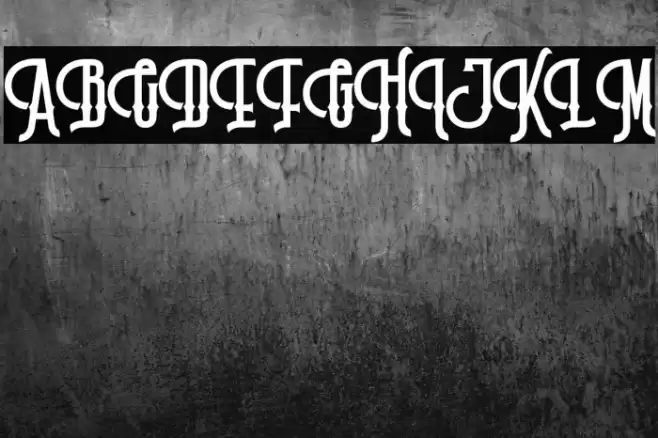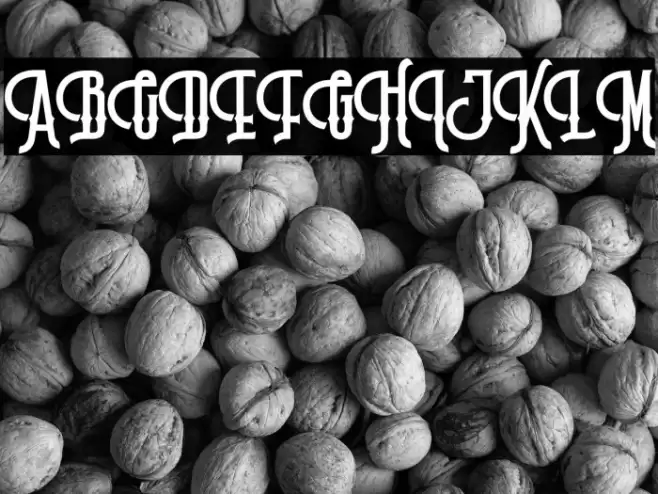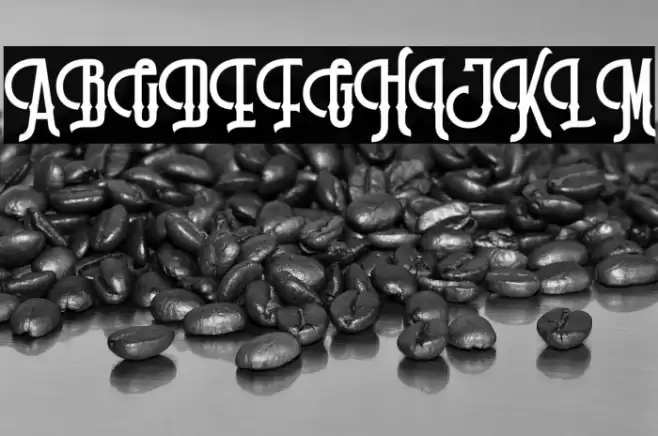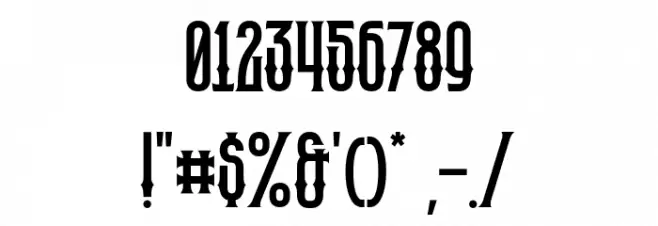
MillgroveDEMO Font
MillgroveDEMO Description
This font features a bold and decorative style with a distinct vintage flair. The uppercase letters are characterized by their ornate, elongated serifs and intricate detailing, giving them a unique and eye-catching appearance. The lowercase letters maintain the same decorative elements, ensuring consistency across the typeface. Numbers and special characters are designed with the same attention to detail, making them suitable for a variety of creative applications. The overall design is reminiscent of old-world typography, making it ideal for projects that require a touch of elegance and sophistication.
A bold, decorative font with vintage, ornate serifs and intricate detailing from Uncategorized fonts.
- Font: MillgroveDEMO
- Proposed Projects: Ideal for vintage-themed posters, branding, invitations, and decorative signage.
- Overall Style: Vintage
- Use Case: Headlines, Logos, Decorative text